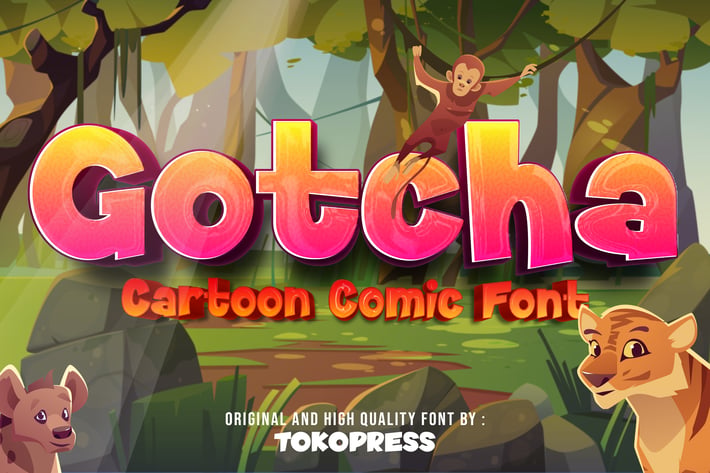
Gotcha - Comic Font
Gotcha - Cartoon Gaming Font
Gotcha is a playful cartoon comic font with bouncy baseline, soft-rounded shapes, and bold personality—crafted to deliver kid-friendly energy and expressive warmth. Ideal for game titles, animated content, and storytelling visuals, Gotcha’s vibrant, exaggerated letterforms and generous spacing make it stand out on colorful layouts and playful designs.
This font speaks to creators who want a bold, cheerful typeface that combines storytelling charm with comic-style fluidity. Its plump rounded structure and exaggerated proportions enhance visibility while keeping it lighthearted and accessible.
Perfect for branding a kids’ product, game UI, adventure-themed packaging, or fun educational apps, Gotcha helps you speak directly to young audiences and families. Whether you're working on YouTube thumbnails, children’s story covers, or summer camp posters, Gotcha adds a joyful personality that grabs attention without overwhelming your visuals.
- Bold & Friendly – Great for creating titles that feel inviting and exciting
- Kid-Safe Readability – Smooth rounded shapes and clear proportions for young readers
- High Impact – Works beautifully in large sizes for posters, games, and packaging
- Versatile & Creative – Matches well with colorful, animated, or themed illustrations
- Balanced & Whimsical – Bouncy rhythm enhances storytelling and dynamic design